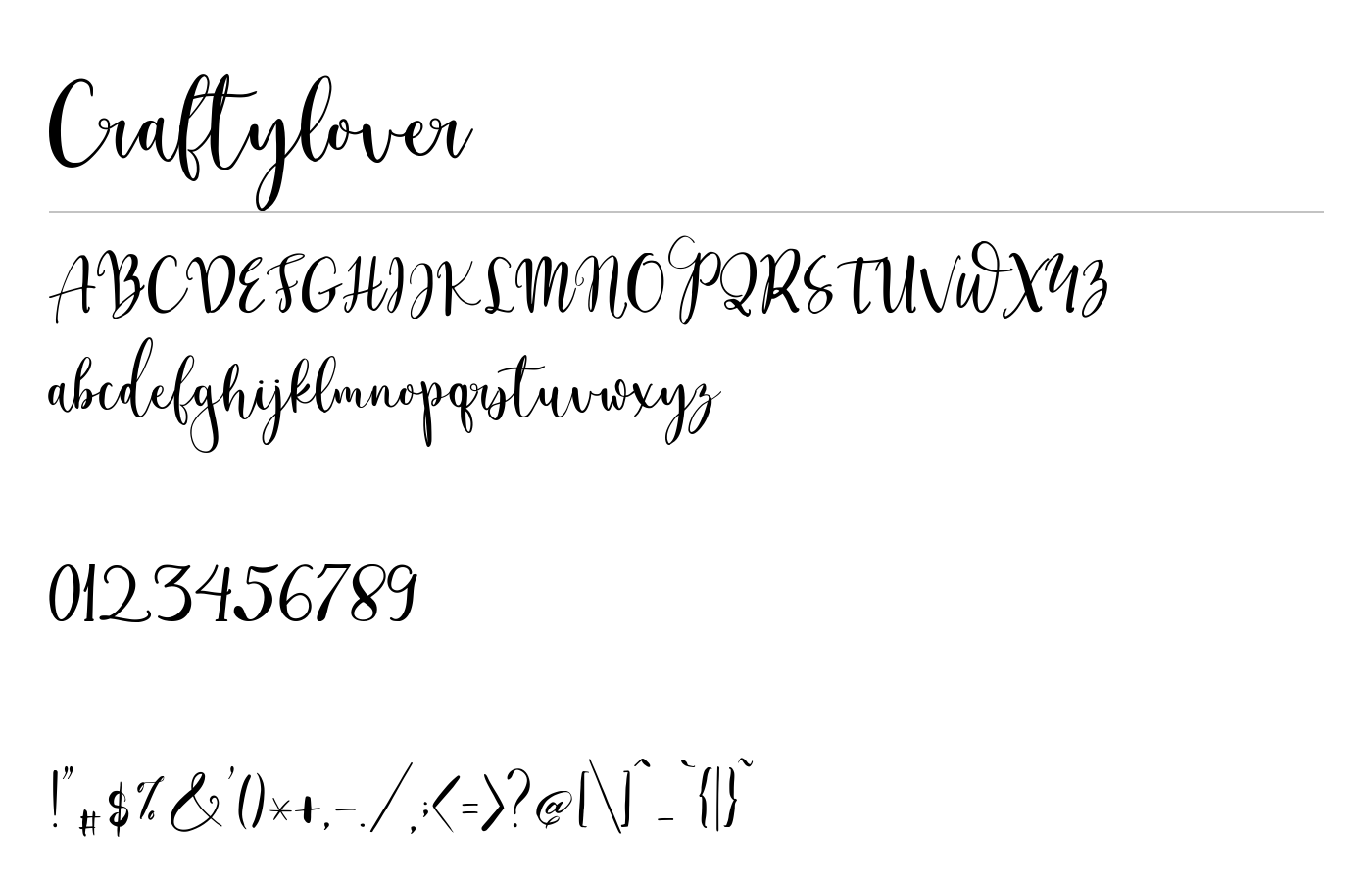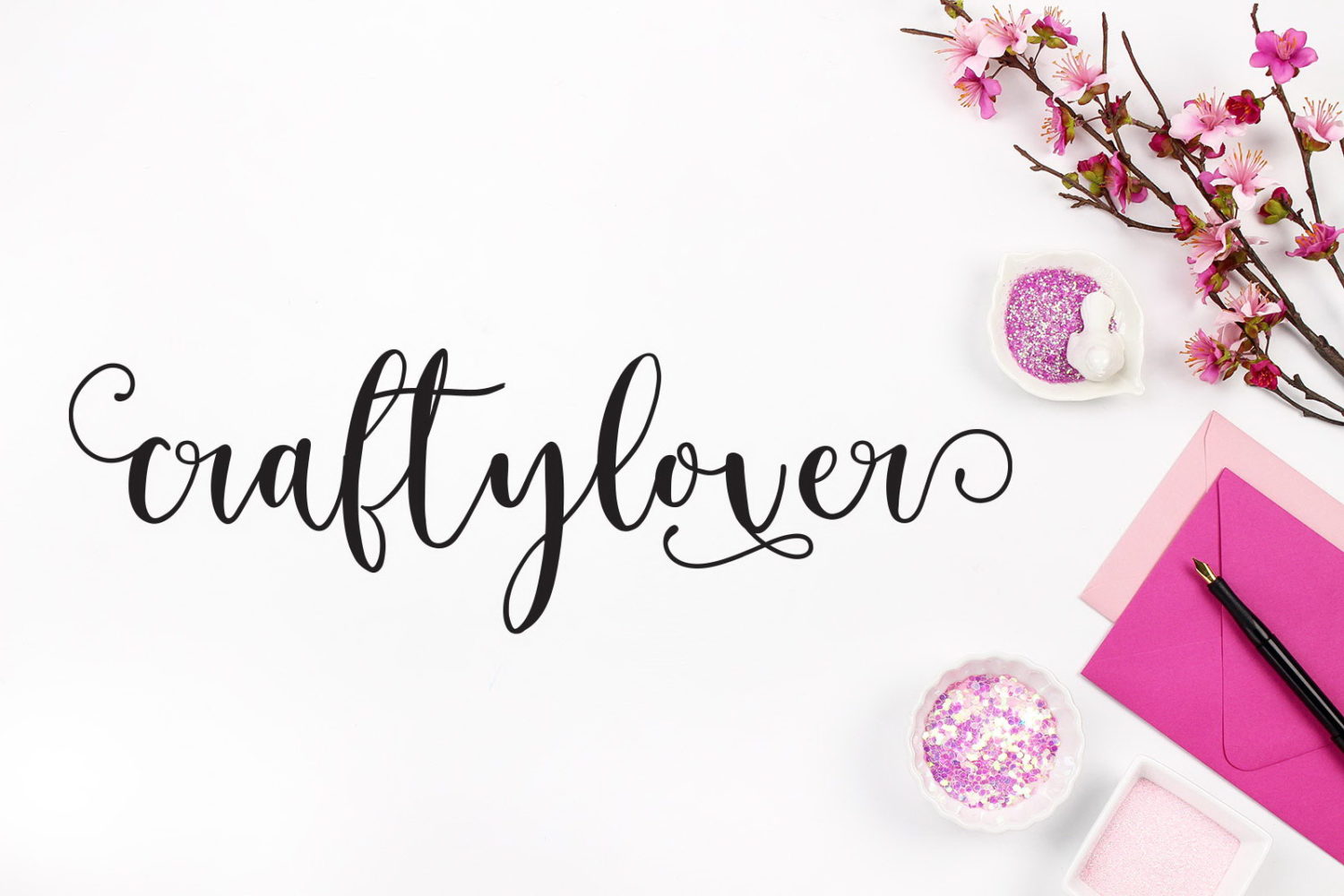
Craftylover Signature Font is a delicate and elegant script typeface that mimics natural handwriting with smooth, flowing strokes and a light weight. Its high x-height and slender letterforms give it a graceful, airy feel, perfect for adding a personal, artistic touch to branding, invitations, or social media designs. This font shines in contexts where a stylish, modern, and friendly vibe is desired, especially in logos and headlines that benefit from its charming, handcrafted look.
Craftylover Signature Font
About Craftylover Signature Font
| Font family | Craftylover Signature Font |
| Designer | Filia MyCandyThemes |